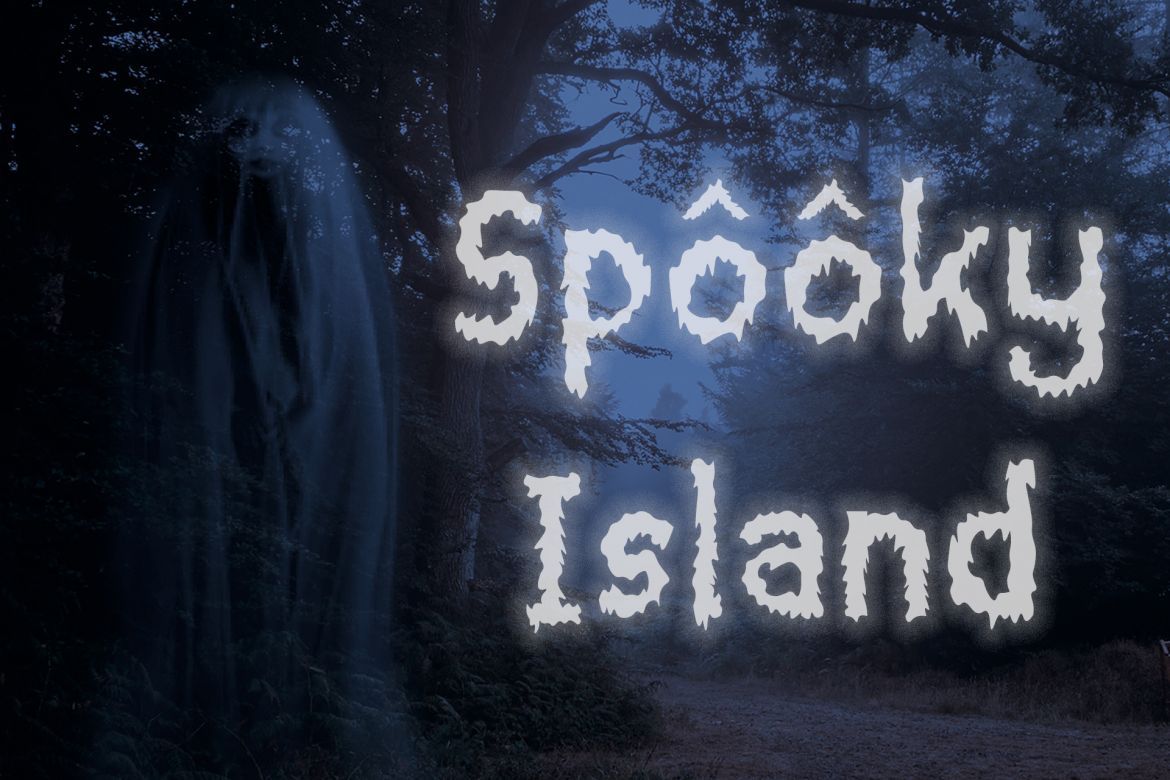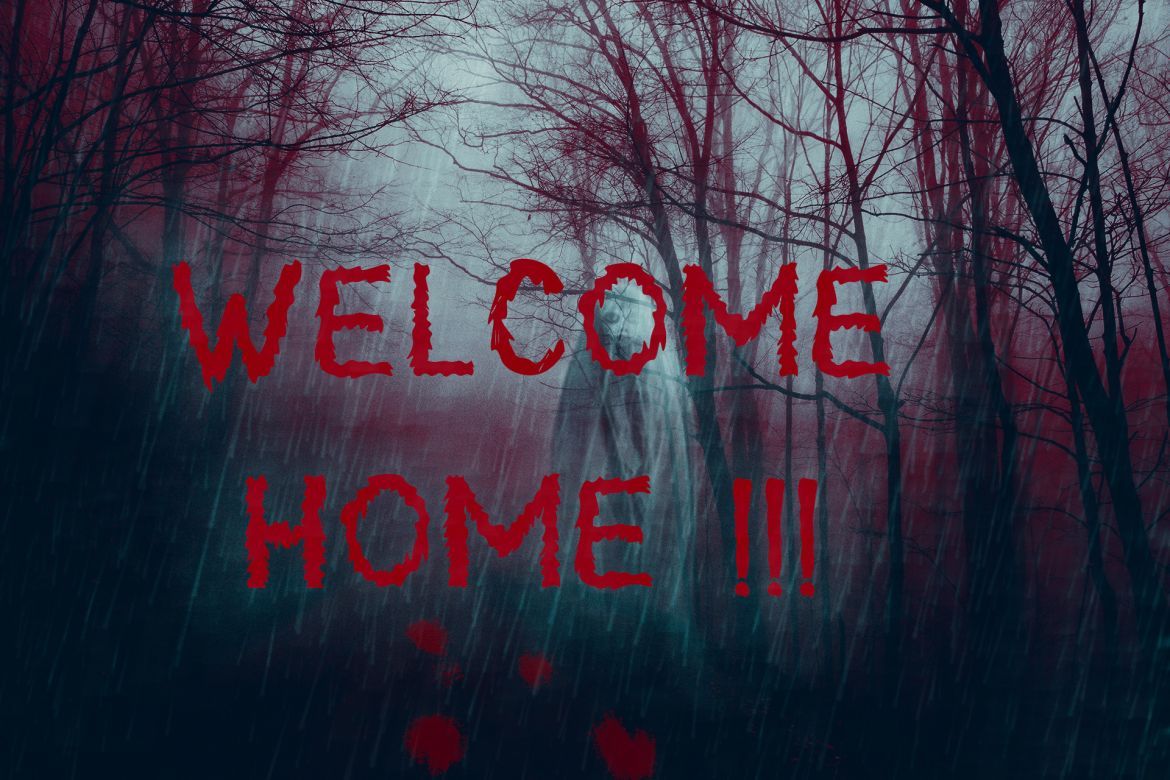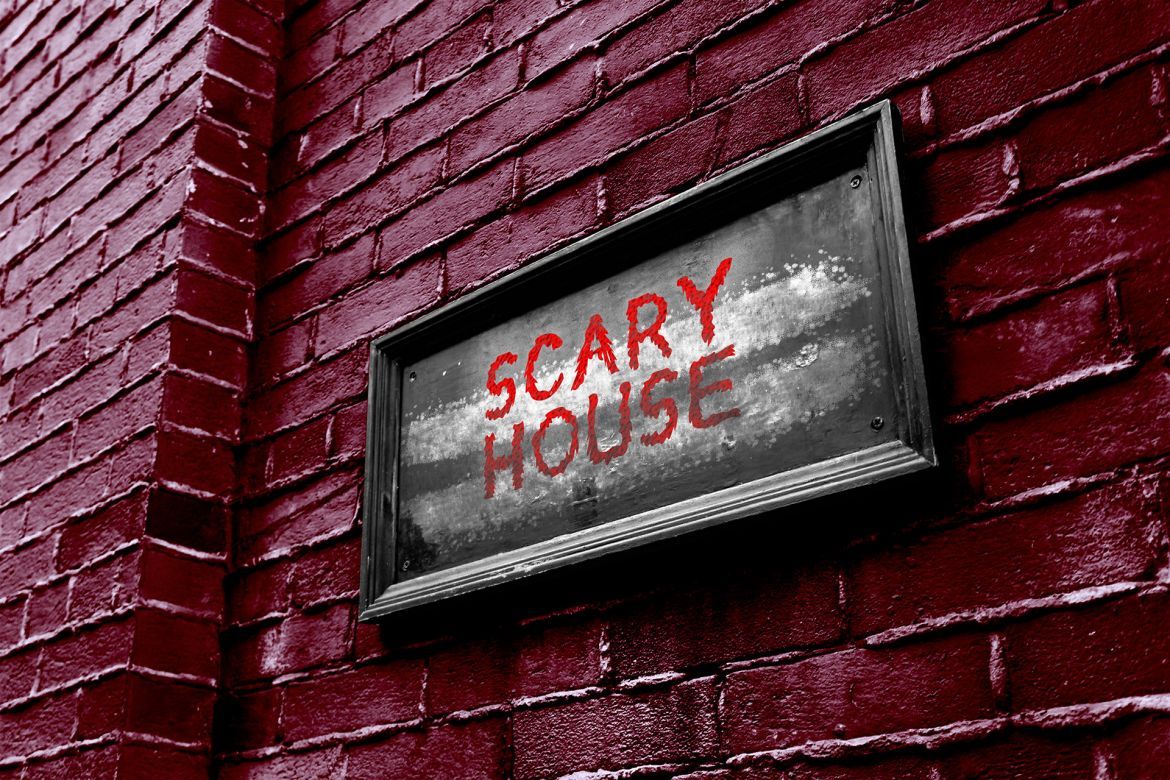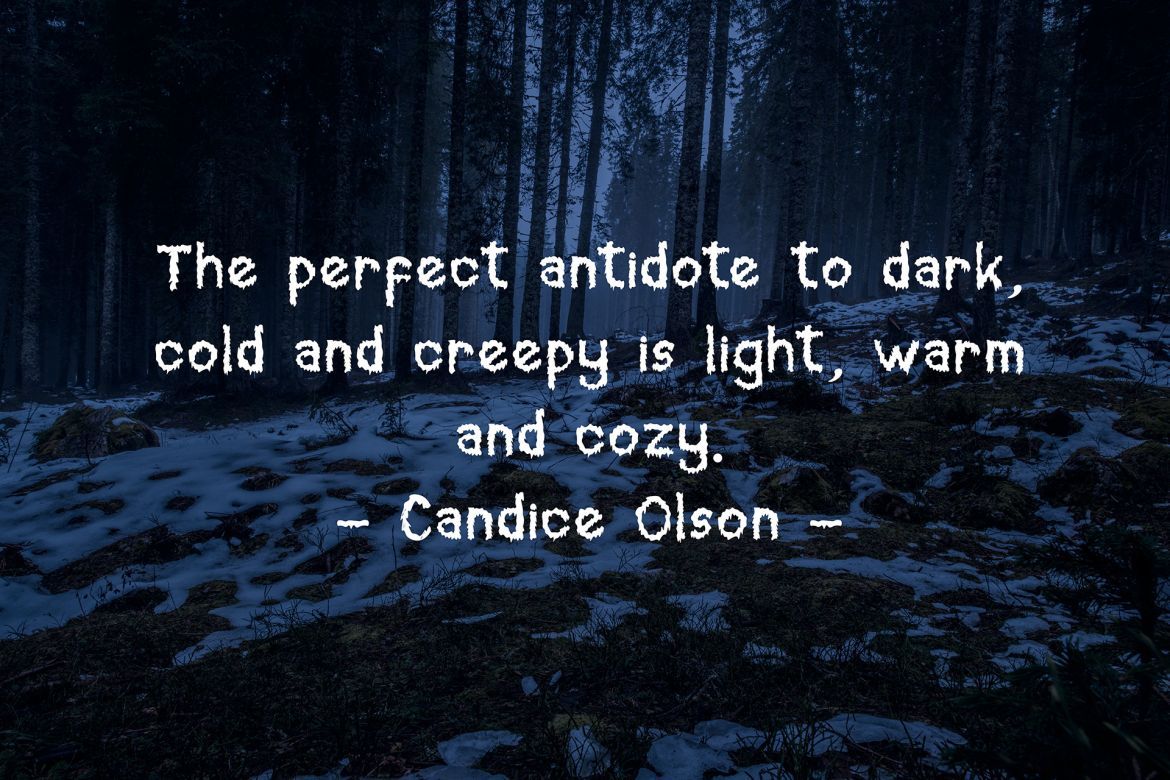
Creepy Forest Display Font
Creepy Forest is a hand-written font with a spooky style. It comes with a large range of characters including uppercase, lower-case, numerals, punctuation, currency and accents. It will be a great choice for any display project, Halloween card, t-shirt, pillow, crafting, and much more!
• creepy forest is a hand-written font with a spooky style. it comes with a large range of characters including uppercase, lower-case, numerals, punctuation, currency and accents.
• it will be a great choice for any display project, halloween card, t-shirt, pillow, crafting, and much more!